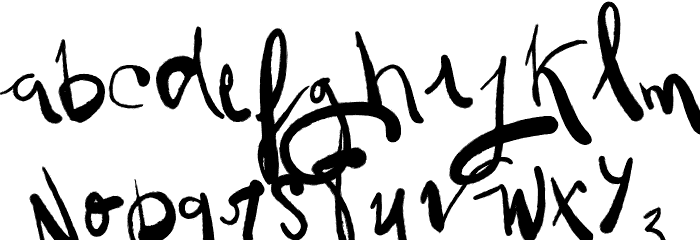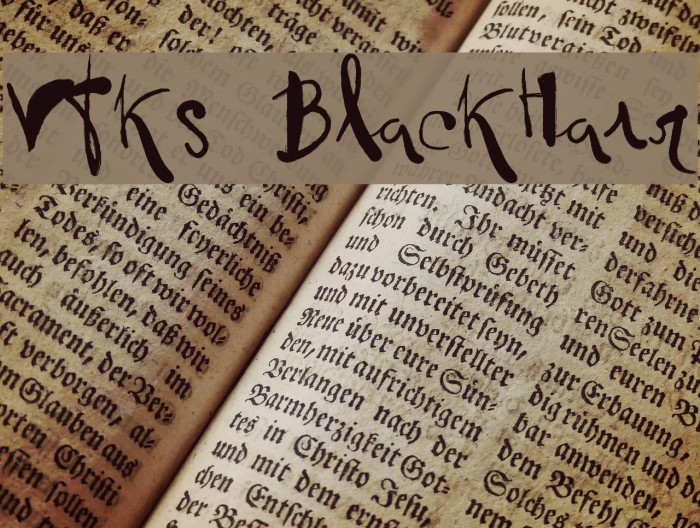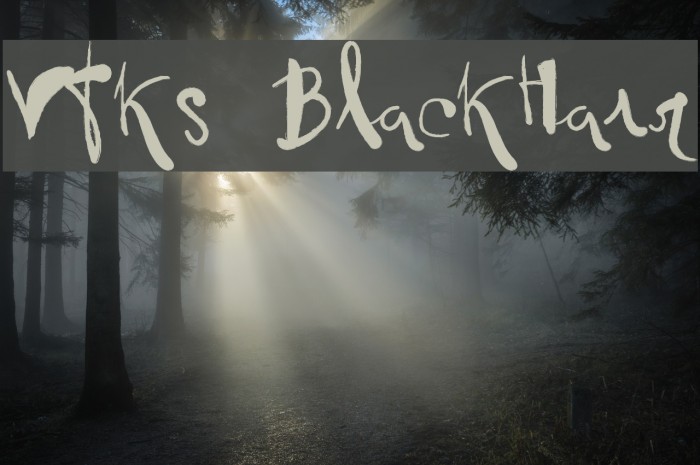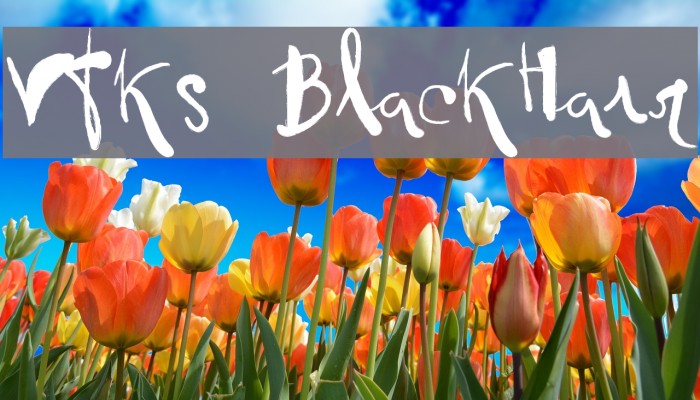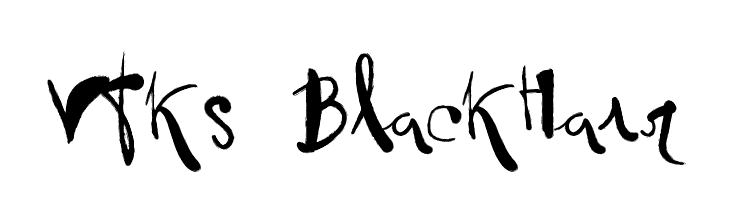
Vtks BlackHair Font
This font features a bold and expressive style with a hand-drawn appearance. The strokes are thick and uneven, giving it a dynamic and artistic feel. The uppercase letters are particularly bold, with a slightly irregular baseline that adds to the handcrafted look. The lowercase letters maintain this expressive style, with some characters featuring exaggerated loops and curves. The numerals and special characters follow the same bold, artistic design, making the font suitable for creative and eye-catching projects.
A bold, hand-drawn font with expressive and artistic strokes.